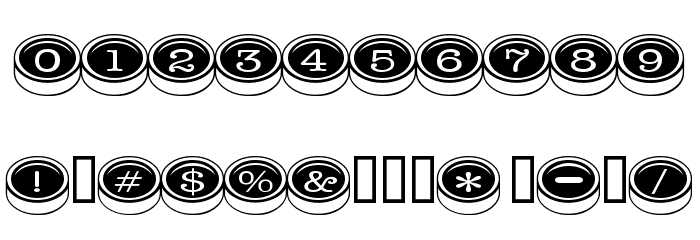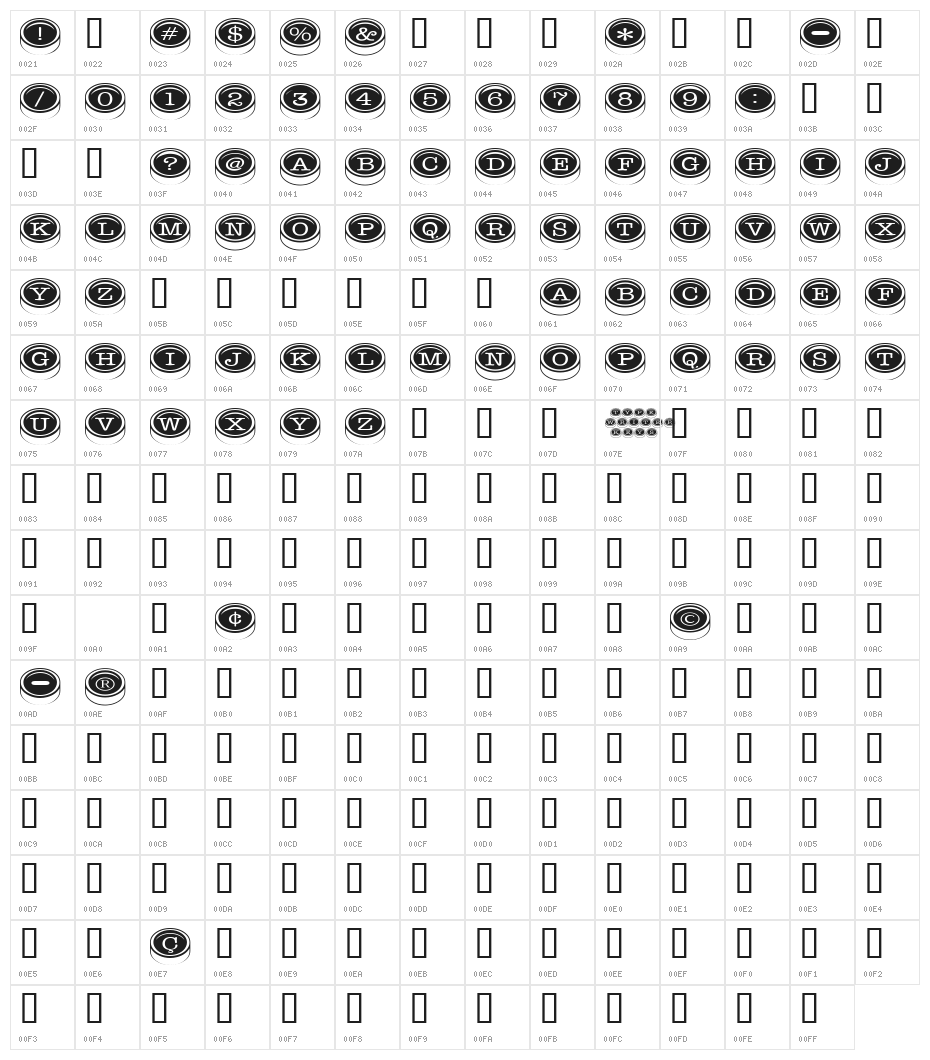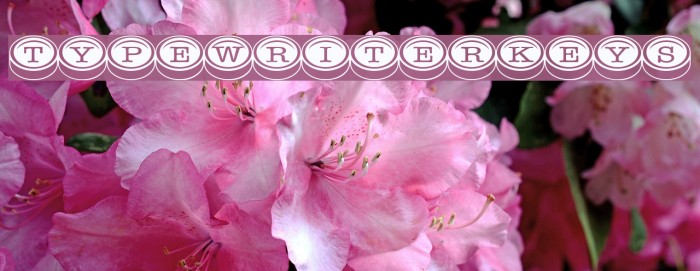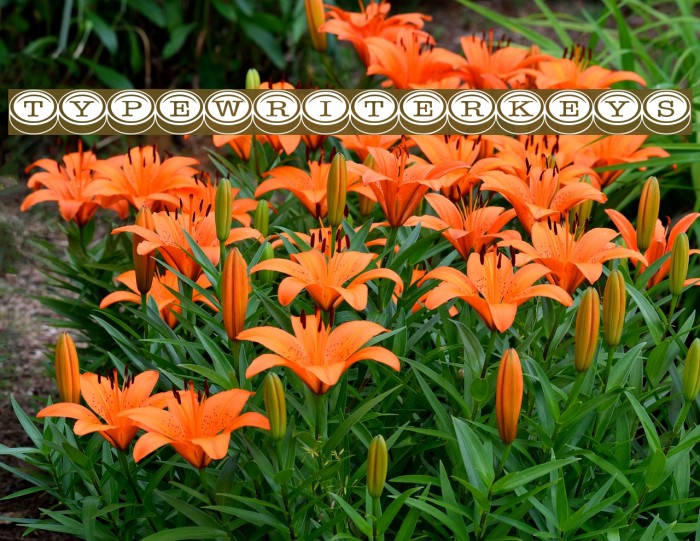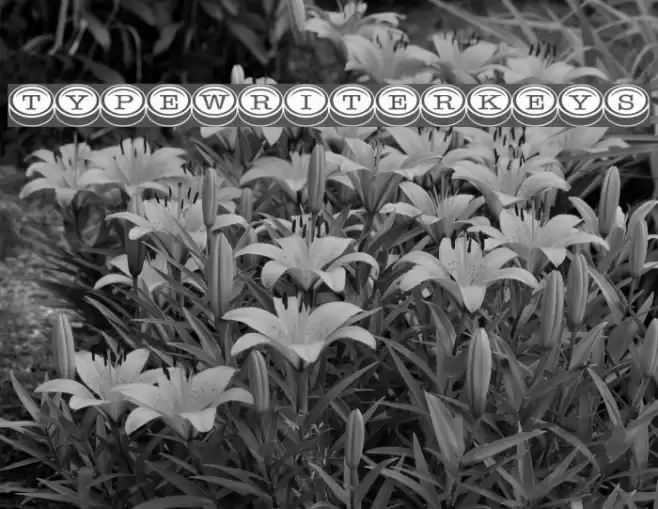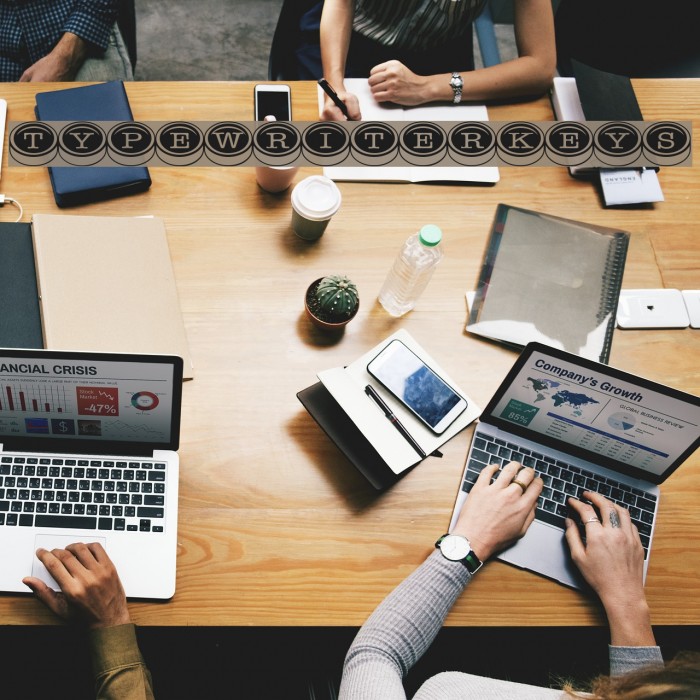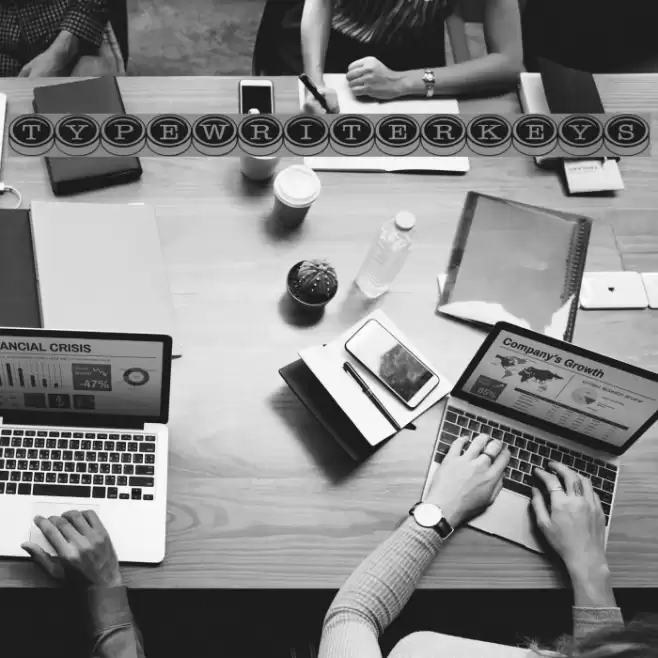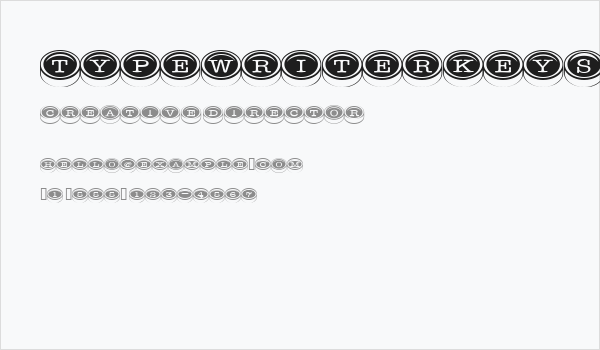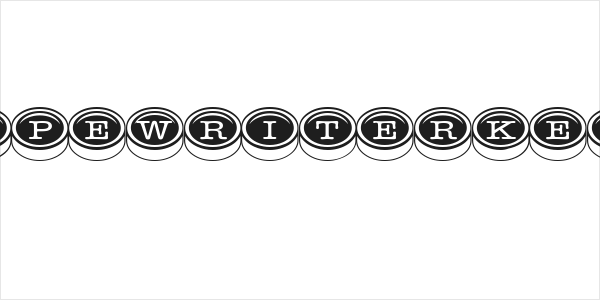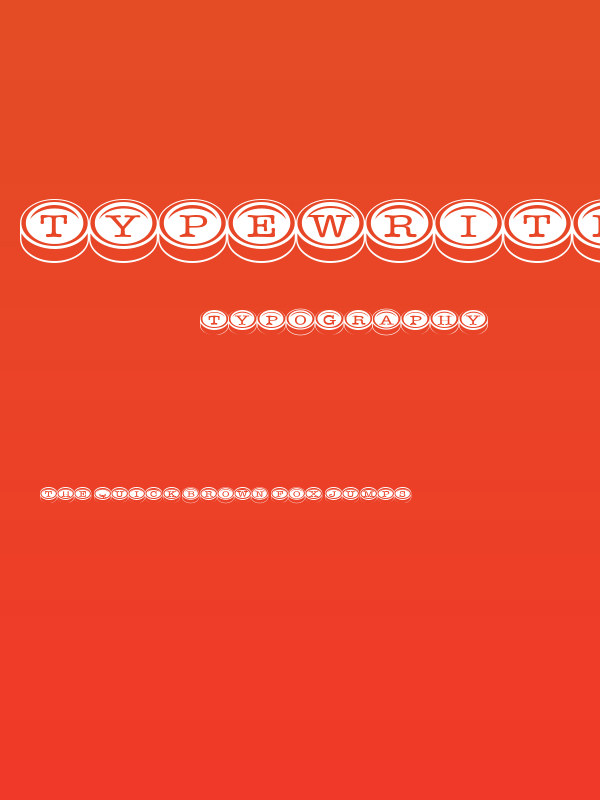
TypewriterKeys Font
| カテゴリ | Typewriter |
| 用途 | Headlines, Logos, Decorative text |
| おすすめプロジェクト | Ideal for retro-themed designs, vintage posters, book covers, and branding that seeks a nostalgic feel. |